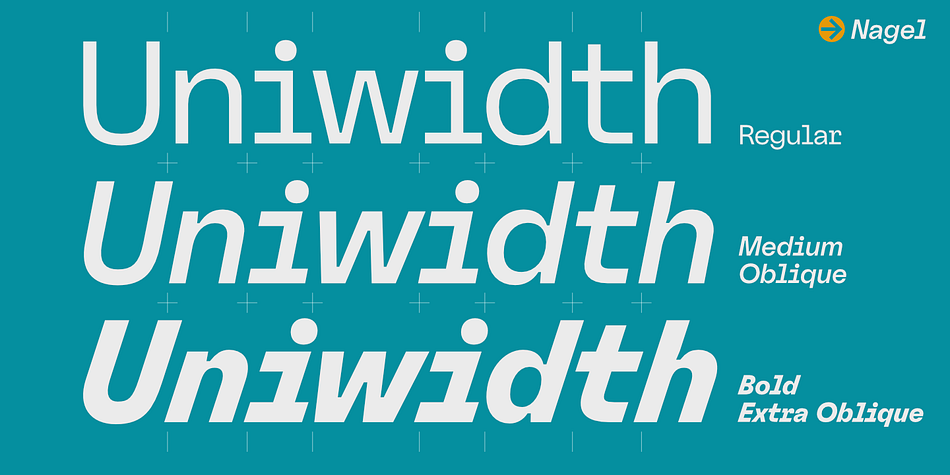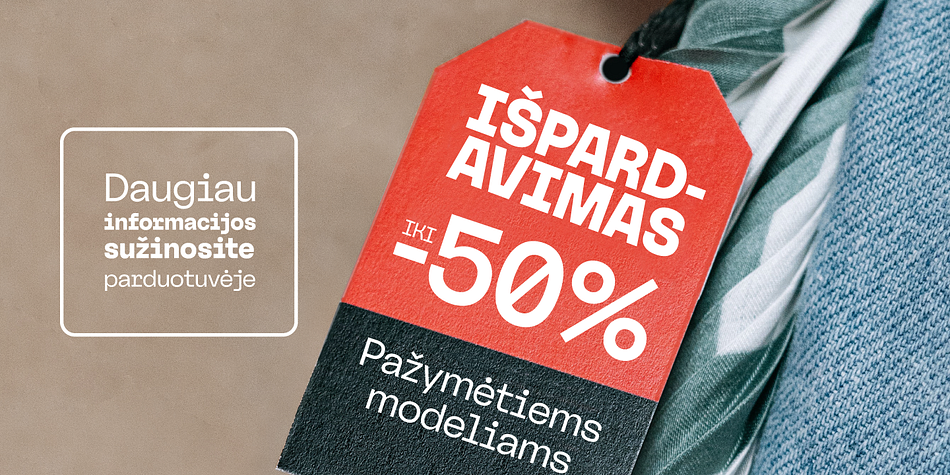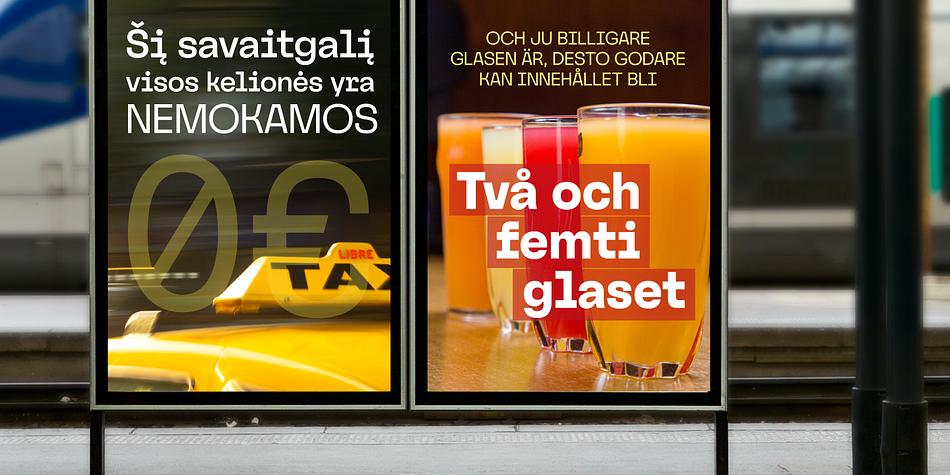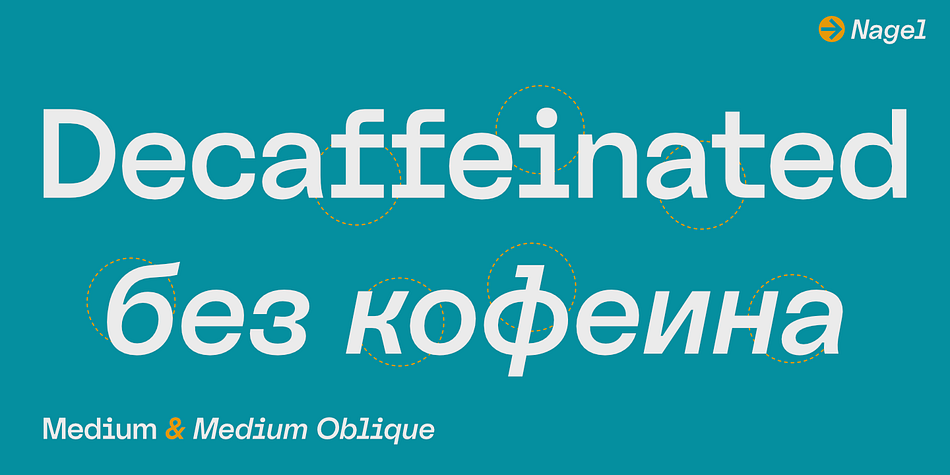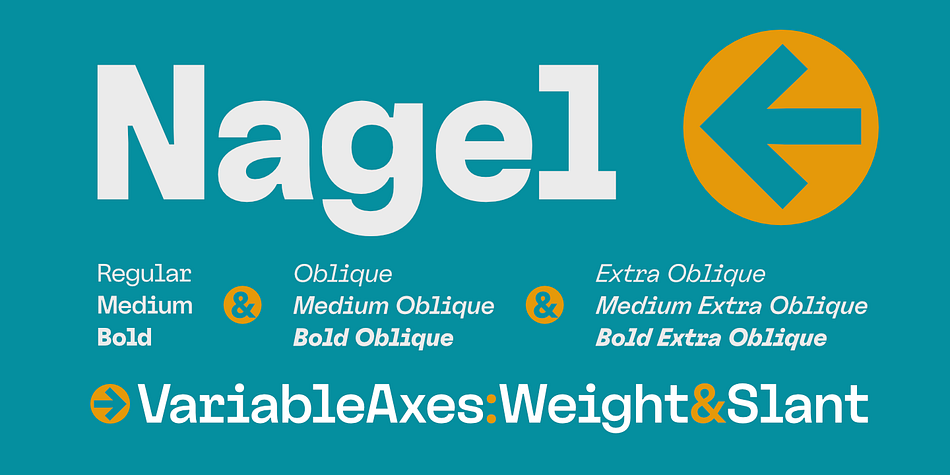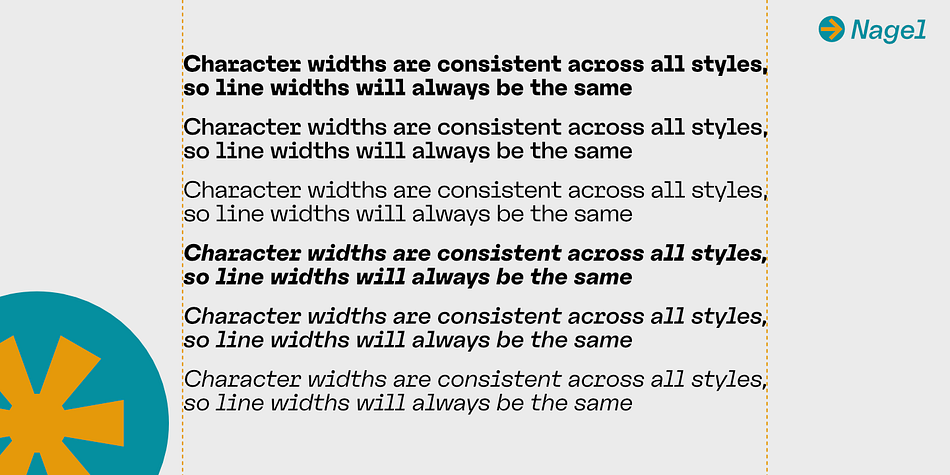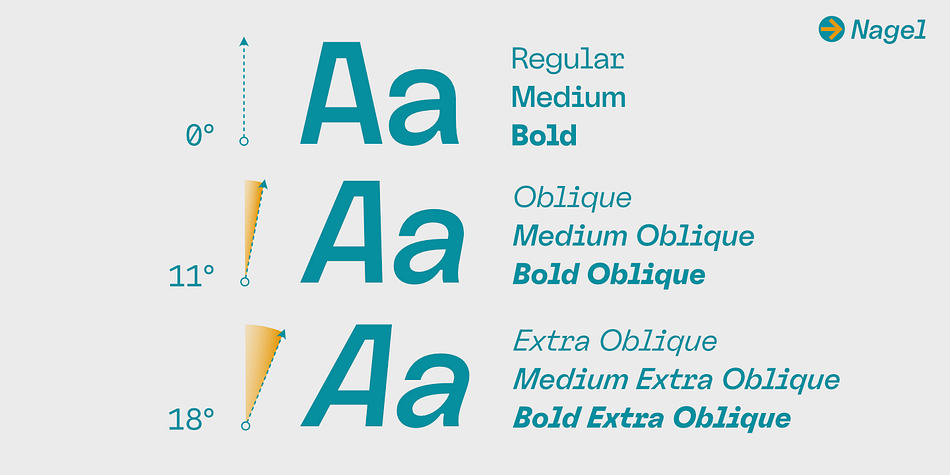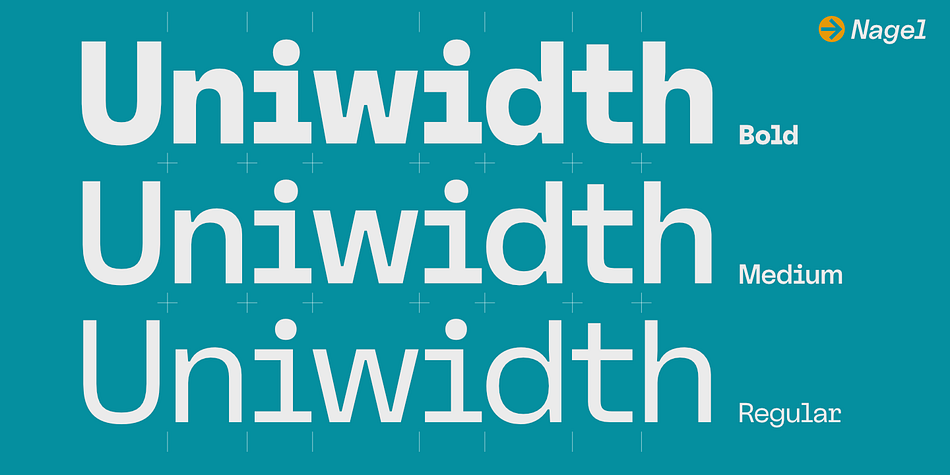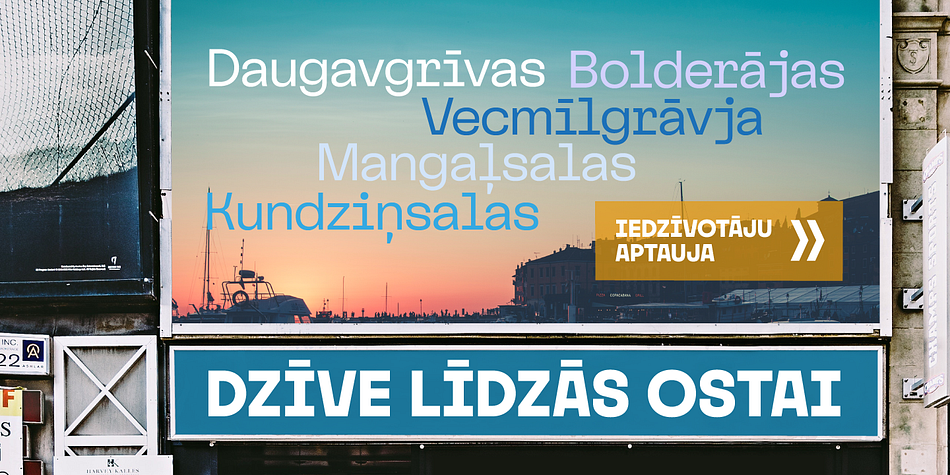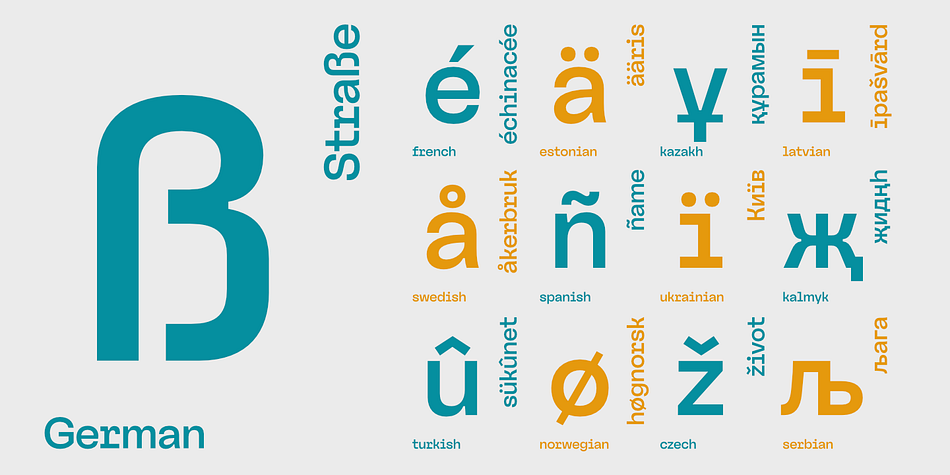
Nagel
Designed by Alexander Lubovenko, Nagel is a sans serif font family. This typeface has ten styles and was published by ParaType.
Nagel is a contemporary uniwidth display sans serif for headlines and short texts.
The scope of Nagel is branding and identity of IT companies, infographics, scientific and technical documentation any areas where a technical, modern typeface with distinctive graphics may be required.
Nagel is a closed low-contrast typeface with an emphasis on stroke joints. The length of the line set in Nagel remains the same in all weights.
The typeface has all the advantages of monospaced typeface graphics, but none of their functional disadvantages. Characters in Nagel are made monospace-like wide, as opposed to traditionally narrow characters of proportional fonts, and often have slab serifs. Letters of monospaced fonts that have to be narrowed down considerably, have the usual width here.
The typeface includes three upright styles Regular, Medium, Bold; two sets of 11 and 18 slanting degrees and a variable version with two axes: Weight and Slant.
The character set includes extended Cyrillic and Latin alphabets, arrows, triangular bullets, index numbers and fractions.
Designed by Alexander Lubovenko.